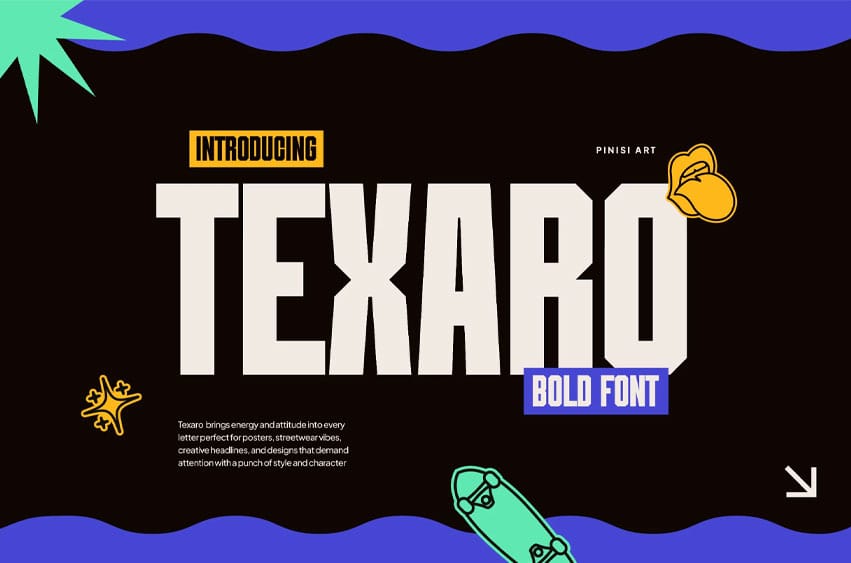
Texaro Font is a bold geometric display font designed for creators who need powerful visual impact in their work. With its chunky proportions, sharp terminals, and confident letterforms, Texaro brings a sense of strength and energy to every word. Its style feels both modern and expressive, making it perfect for Instagram posts, editorial layouts, and striking poster headlines.
This typeface was crafted for brands, designers, and storytellers who want their message to dominate the visual space. Texaro makes headlines unmissable, strengthens branding, and adds cinematic weight to marketing campaigns. Whether you’re building game visuals, bold magazine spreads, social media ads, or high-energy music covers, Texaro ensures your words hit harder and stay memorable.
- Bold geometric forms for maximum visual impact
- Strong contrast and clean edges to stand out in any layout
- Versatile usage: posters, branding, social media, editorial, and packaging
- Expressive personality with energetic tone for storytelling projects
- Optimized readability in both digital and print environments
Bring unstoppable energy to your next design. Texaro is built to elevate your brand presence, making every word louder, sharper, and more memorable. Don’t let your ideas fade into the background—make them stand tall with Texaro today!